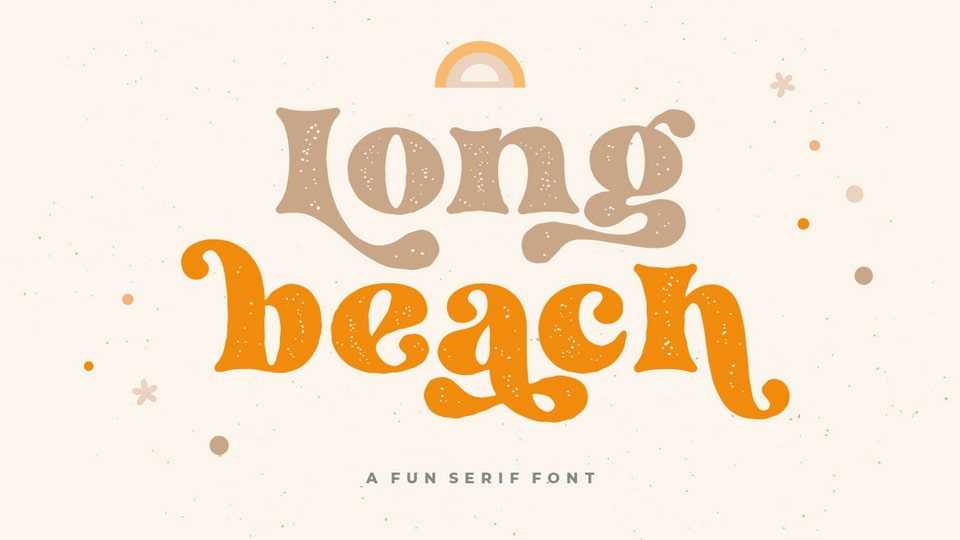
Download Long Beach font, a bold vintage serif typeface with a charming style. Use this display font to add that special retro touch to any design idea you can think of!